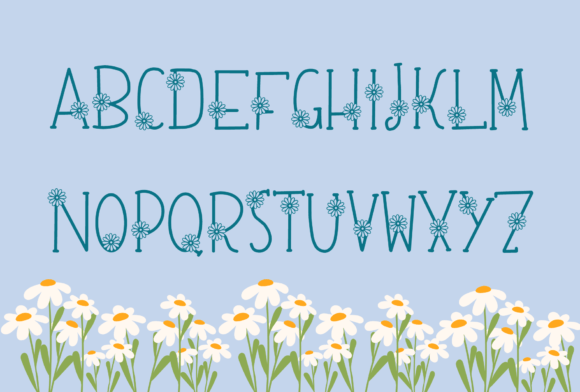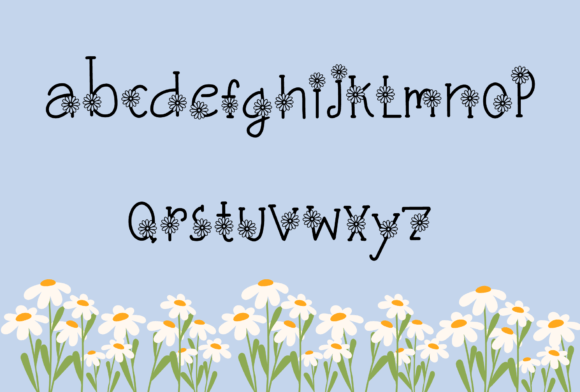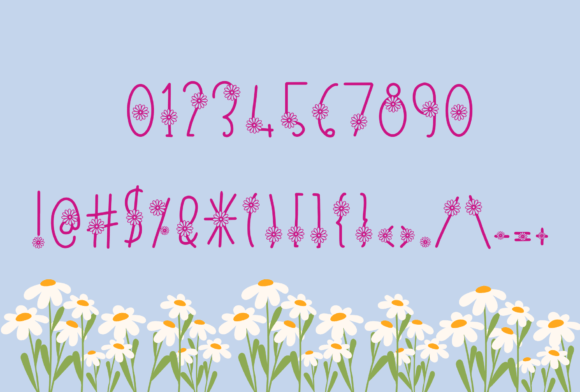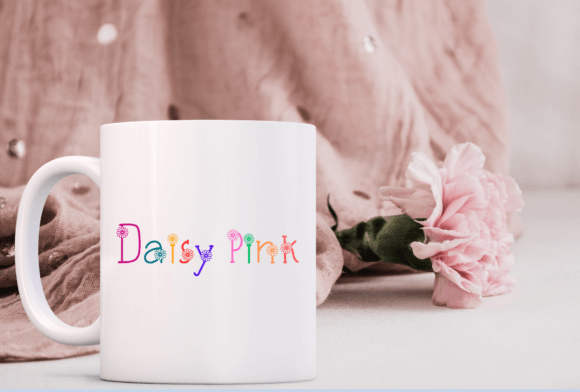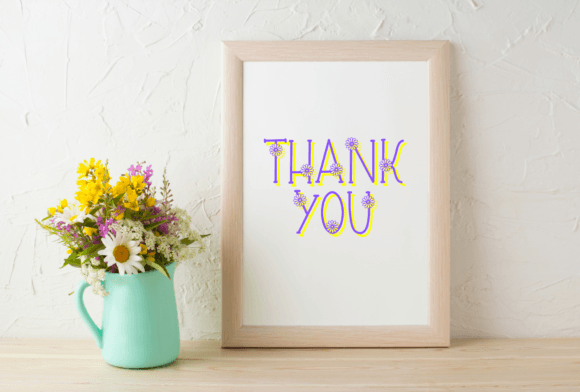
Discover the Sweet Charm of the Daisy Pink Font
Have you ever found yourself doodling in the margins of a notebook, creating playful characters and whimsical patterns? That’s exactly the kind of creative spark that the Daisy Pink Font embodies. This super cute display font and handwriting font is designed to bring a touch of personality to your designs, making it the perfect addition to any project.
Whether you’re a teacher looking to add some visual interest to your lesson plans, a designer seeking a unique font for an advertising campaign, or an illustrator wanting to add some flair to your artwork, the Daisy Pink Font is sure to delight. Its simple style and versatility make it an invaluable asset for designers, allowing you to express your creativity and connect with your audience in a meaningful way.
Daisy Pink Font Key Features
- Font Style: Script, Handwritten
- Unique Characteristics: Unique, playful, and elegant handwritten style with a touch of femininity
Daisy Pink Font Review
As a designer, I was excited to give the “Daisy Pink Font” a try. Here’s my honest review:
- The font is playful and perfect for feminine designs, such as wedding invitations, baby shower invitations, and women’s fashion brands.
- The font is highly customizable, with various font weights and styles available to suit different design needs.
- The font is also very legible, making it easy to read even in small sizes.
- The font may not be suitable for corporate or formal designs, as it has a playful and whimsical feel.
- The font may not be as bold or dramatic as some other fonts, which may limit its use in certain design contexts.
- The font may not be available in as many languages as some other fonts, which may be a limitation for designers working with international clients.
Overall, I think the “Daisy Pink Font” is a great choice for designers who need a playful and feminine font for their projects. While it may have some limitations, it is highly customizable and easy to use. I would definitely consider using it again in the future.
Tips for Getting the Most Out of Daisy Pink Font
For optimal results, use Daisy Pink Font in designs that require a playful and whimsical touch. It pairs well with pastel colors and floral patterns.
Daisy Pink Font is suitable for various applications, including:
– Blog posts
– Wedding invitations
– Children’s party decorations
Alternatives to Daisy Pink Font
Lato is a modern sans-serif font that is highly legible and versatile. It is suitable for a wide range of designs, from body text to headings. Lato is a great alternative to Daisy Pink Font for designs that require a clean and elegant look. Compared to Daisy Pink Font, Lato has a more neutral color palette and a more modern feel.
Great Vibes is a beautiful script font that is perfect for designs that require a touch of elegance and sophistication. It is suitable for headings and titles, and can add a personal touch to your design. Compared to Daisy Pink Font, Great Vibes has a more cursive and flowing feel, making it ideal for designs that require a sense of movement and energy.
Playfair Display is a luxurious serif font that is perfect for high-end designs and luxury brands. It is suitable for headings and titles, and can add a sense of sophistication and elegance to your design. Compared to Daisy Pink Font, Playfair Display has a more formal and traditional feel, making it ideal for designs that require a sense of refinement and sophistication.
Abril Fatface Font
Abril Fatface is a beautiful display font that is perfect for designs that require a touch of whimsy and playfulness. It is suitable for headings and titles, and can add a sense of fun and energy to your design. Compared to Daisy Pink Font, Abril Fatface has a more bold and eye-catching feel, making it ideal for designs that require a sense of excitement and drama.
Q: What is the recommended font size for using Daisy Pink?
The recommended font size for Daisy Pink varies depending on the design application and the desired effect. As a general guideline, use font sizes between 12pt and 24pt for body text, and 36pt to 72pt for headings and titles. This will help maintain the font’s readability and visual appeal.